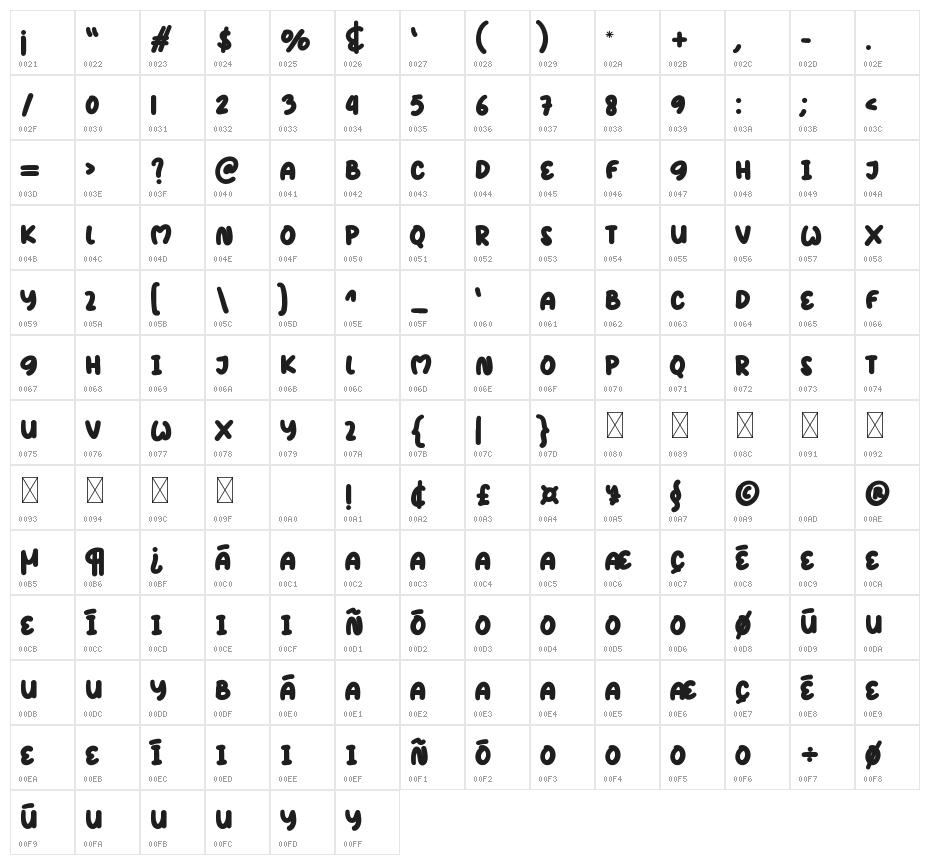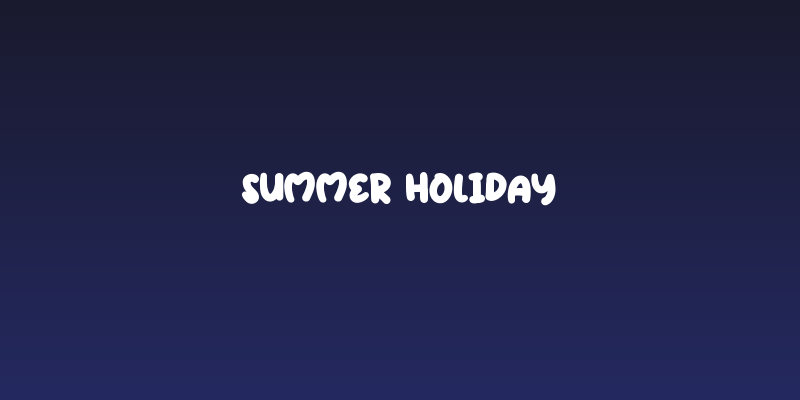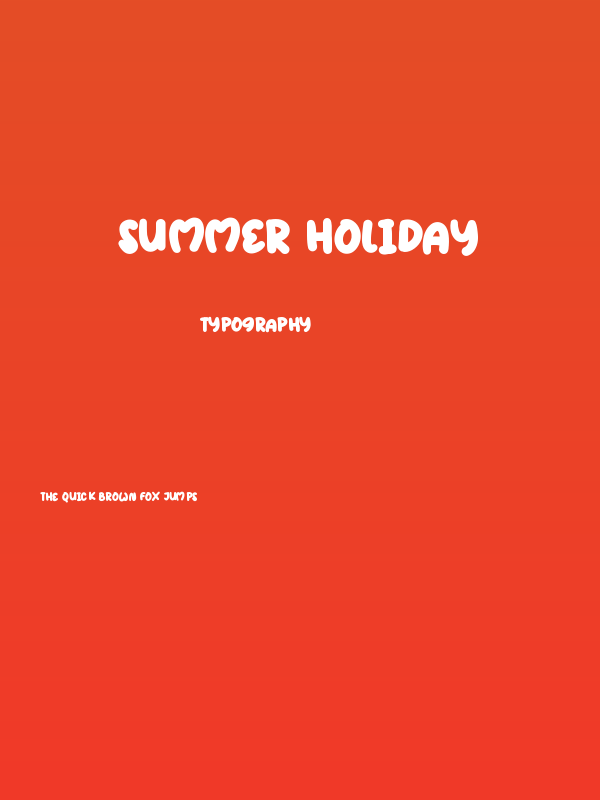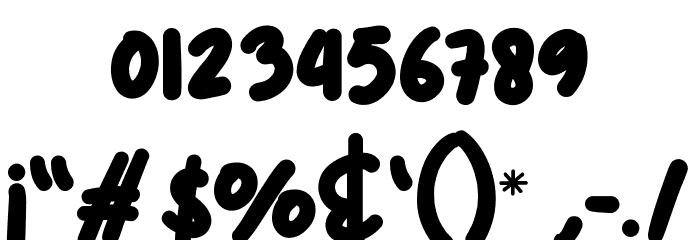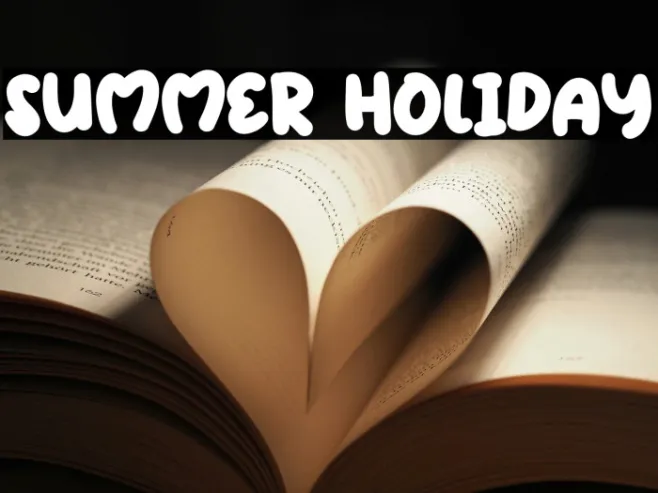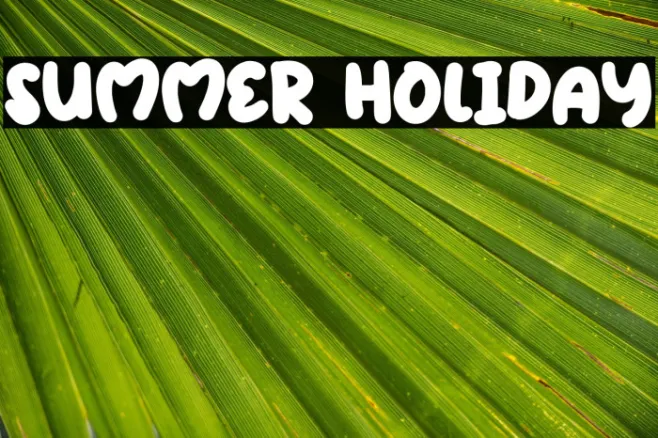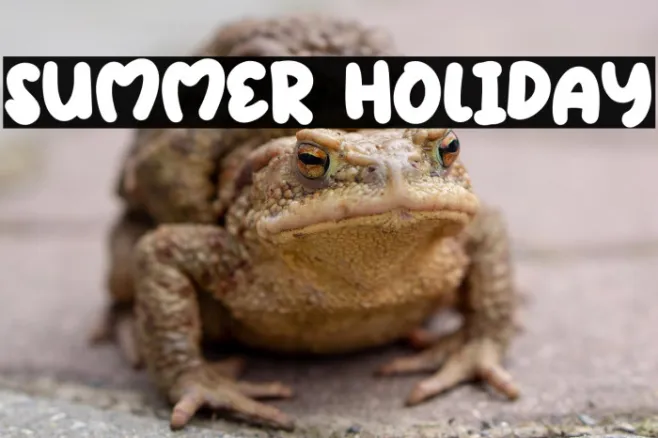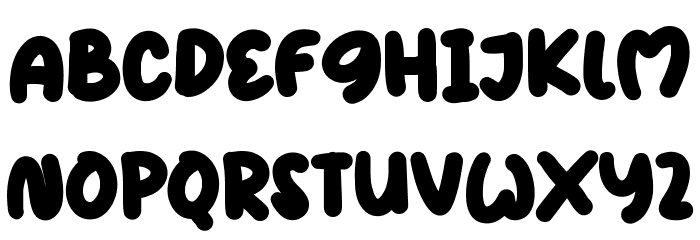
Summer Holiday Font
Summer Holiday Description
This playful and bold font features a rounded, bubbly style that exudes a sense of fun and whimsy. The characters are thick and uniform, with a consistent stroke width that gives them a cohesive look. The letters have a slightly irregular shape, adding to the casual and informal feel of the font. The numbers and special characters maintain the same playful aesthetic, making this font suitable for creative and lighthearted projects. Its bold presence ensures readability while maintaining a friendly and approachable appearance.
| Proposed Projects | Ideal for children's books, party invitations, playful branding, and casual social media graphics. |